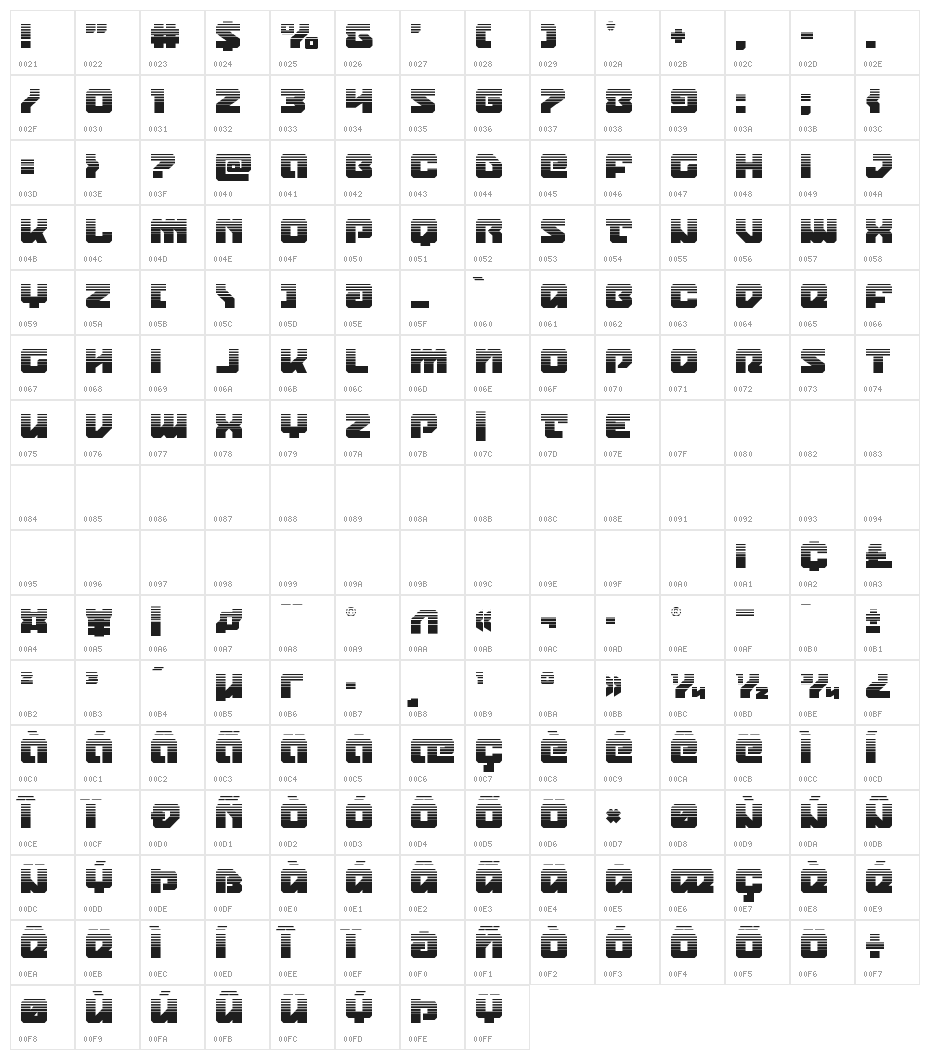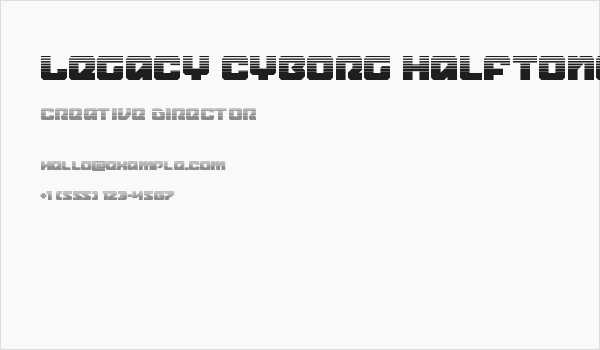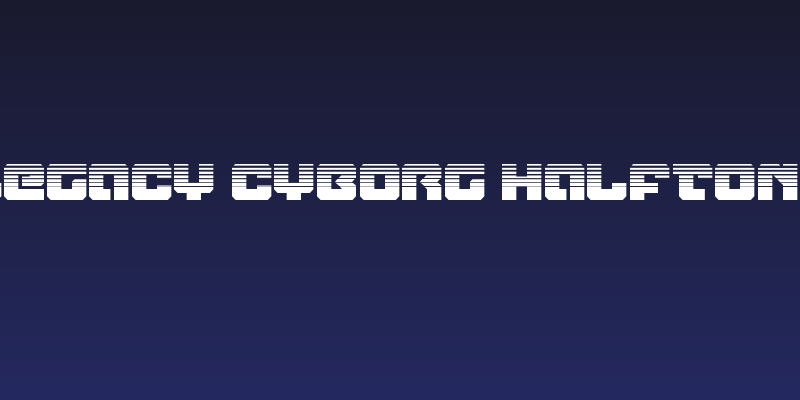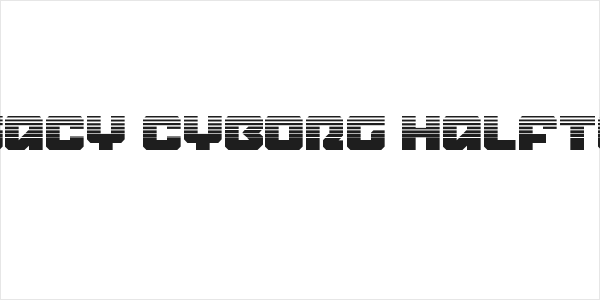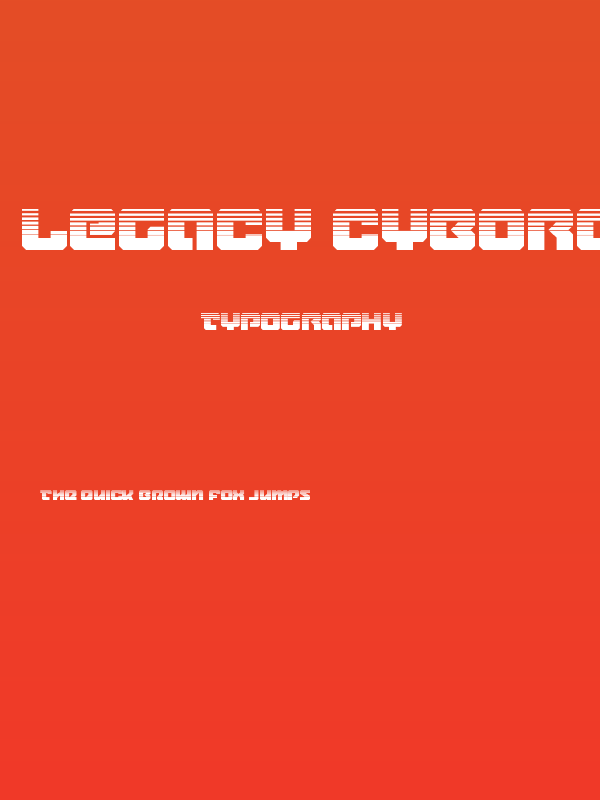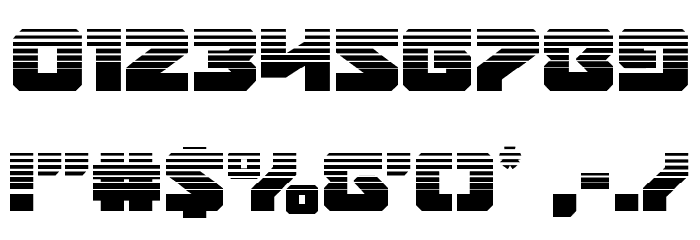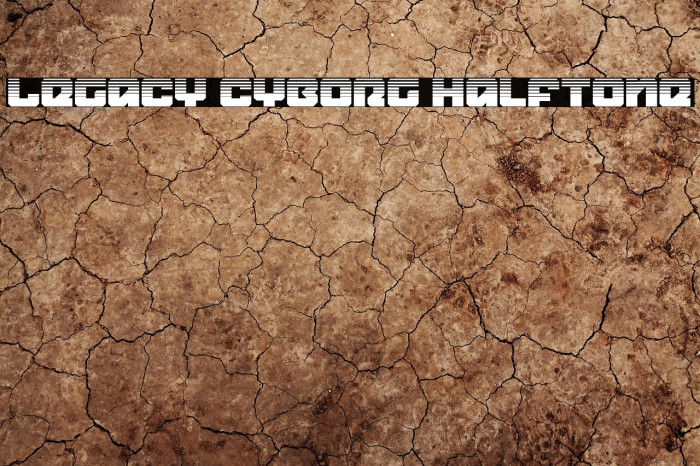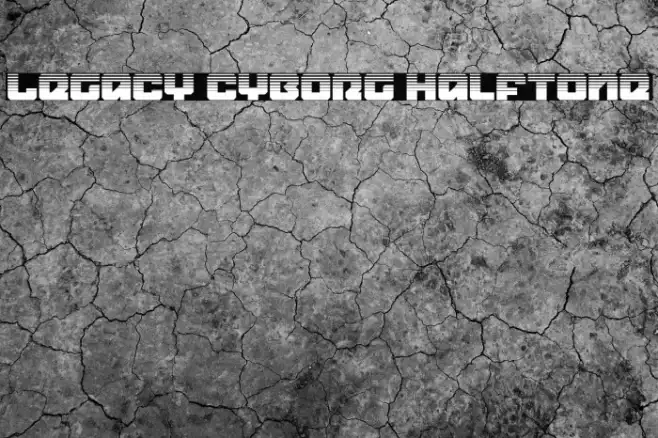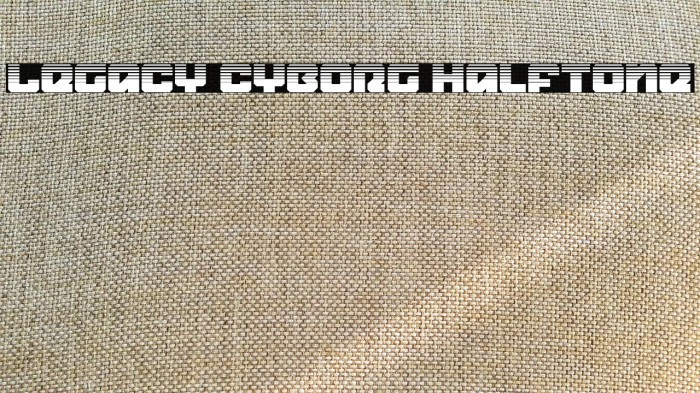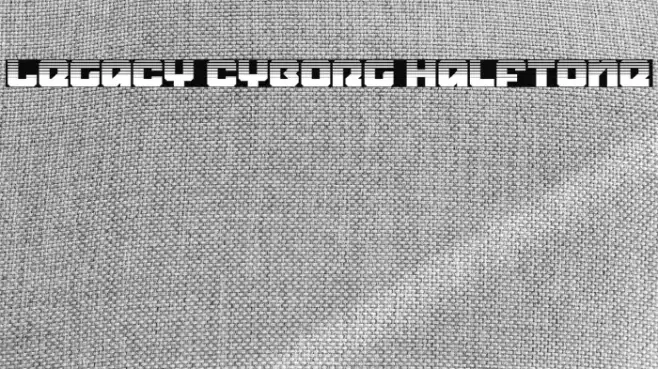
Legacy Cyborg Halftone Font
Legacy Cyborg Halftone Description
This font features a futuristic and bold design with a distinct halftone effect. Each character is constructed with horizontal lines that create a sense of movement and depth, reminiscent of digital or cybernetic themes. The uppercase and lowercase letters maintain a consistent style, with sharp angles and geometric shapes that enhance the modern aesthetic. The numbers and special characters are equally stylized, ensuring a cohesive look across all glyphs. This font is ideal for projects that require a strong, tech-inspired visual impact.
| Proposed Projects | Ideal for sci-fi movie posters, video game titles, tech company logos, and digital art projects. |